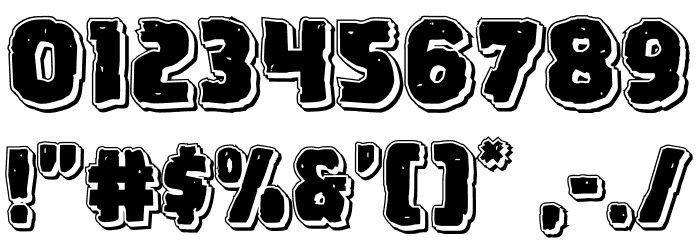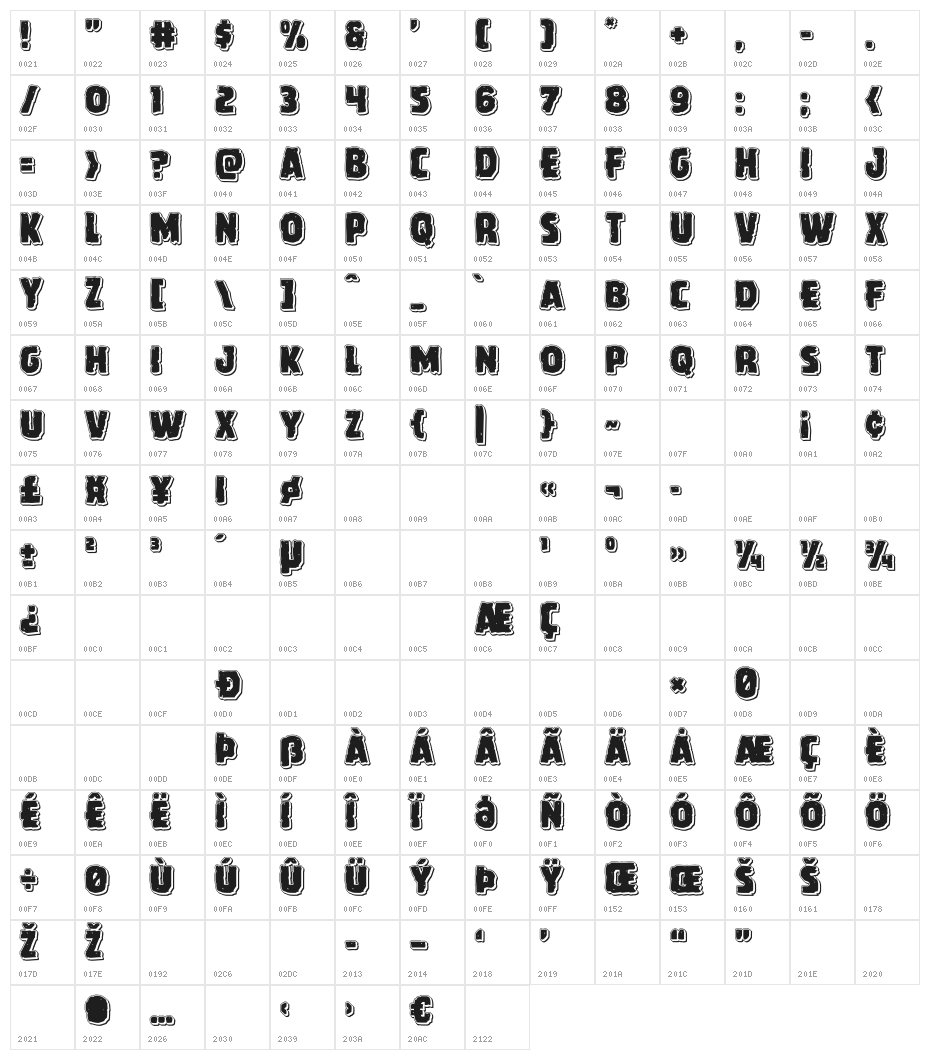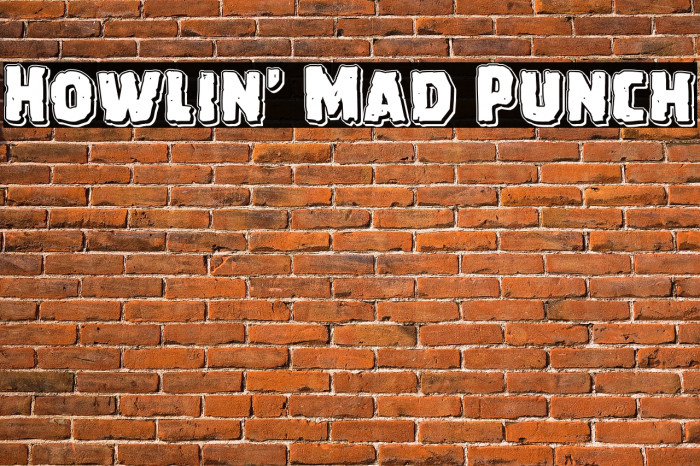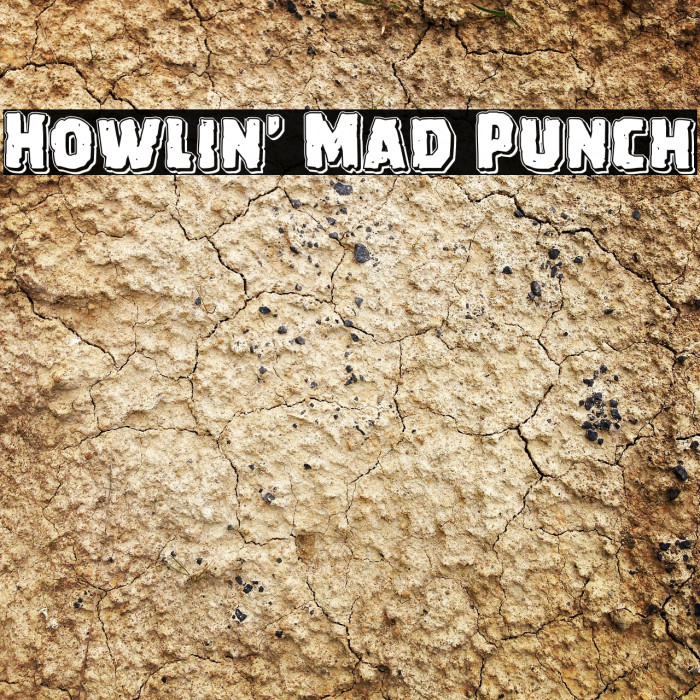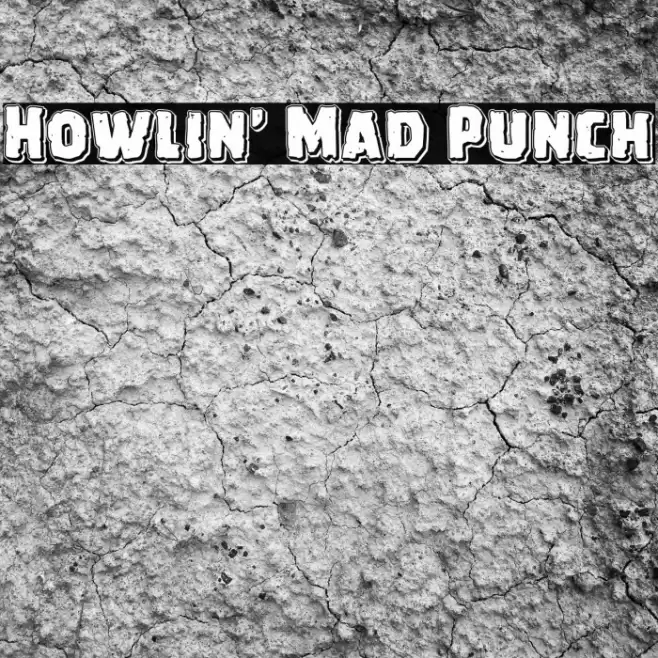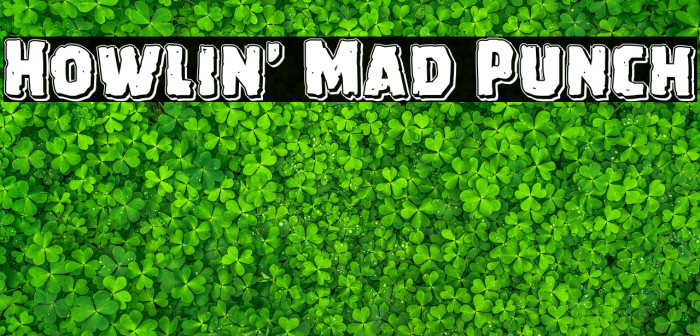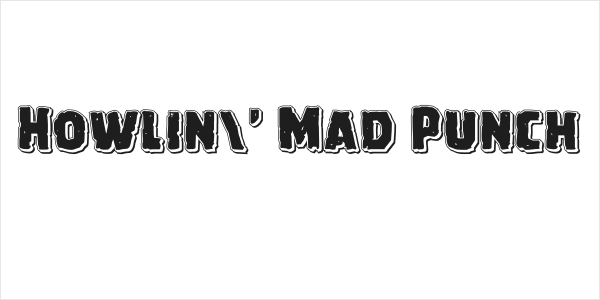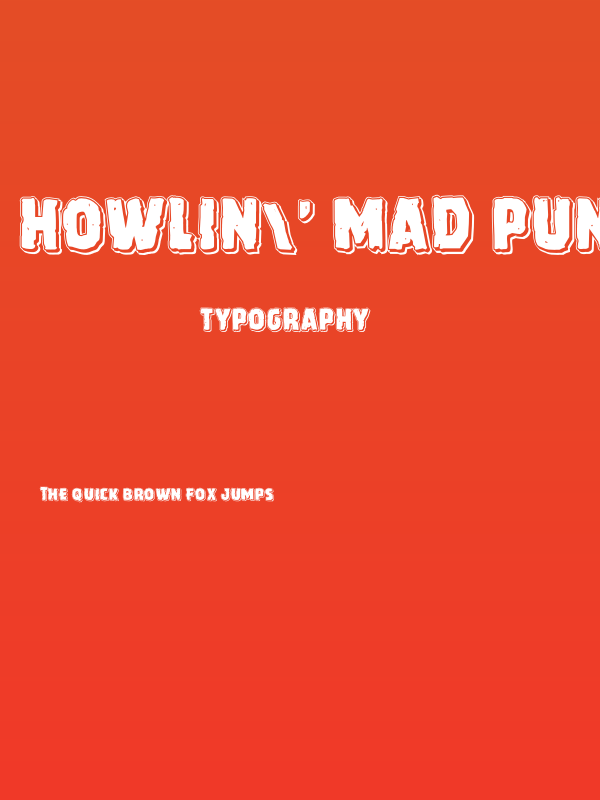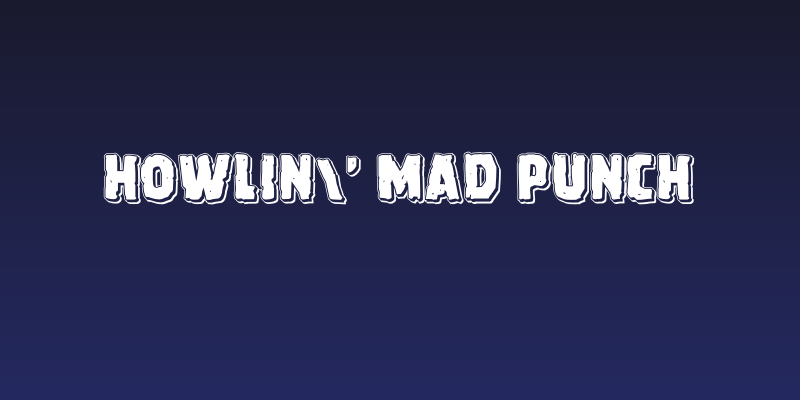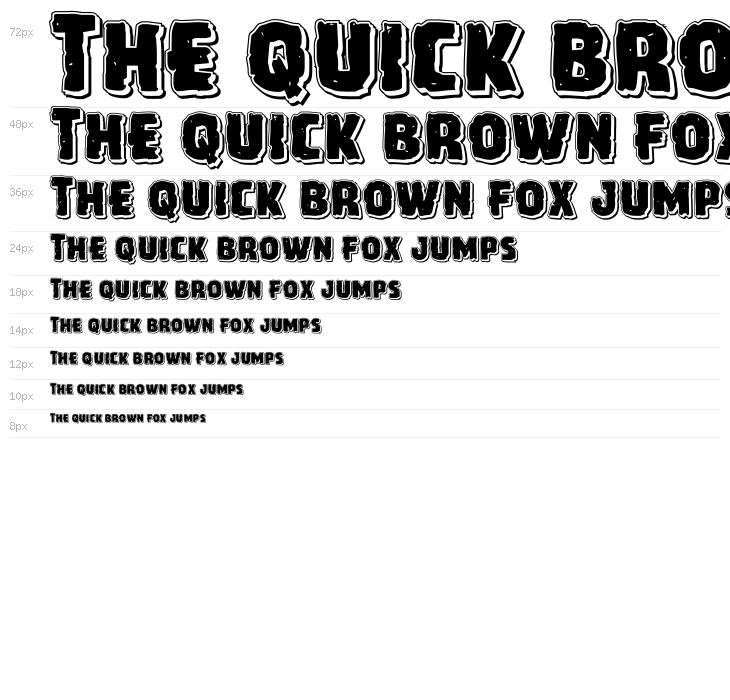
Howlin' Mad Punch Font
Howlin' Mad Punch Description
This bold and dynamic font features a rugged, distressed style that gives it a raw and energetic appearance. Each character is outlined with a thick, uneven stroke, creating a sense of movement and intensity. The letters are bold and chunky, with a slightly irregular shape that adds to the font's edgy and rebellious vibe. The numbers and special characters maintain this rough aesthetic, making the font suitable for projects that require a strong, impactful presence. Its unique style is perfect for grabbing attention and conveying a sense of urgency or excitement.
Proposed ProjectsIdeal for posters, album covers, video game graphics, and any project needing a bold, edgy look.